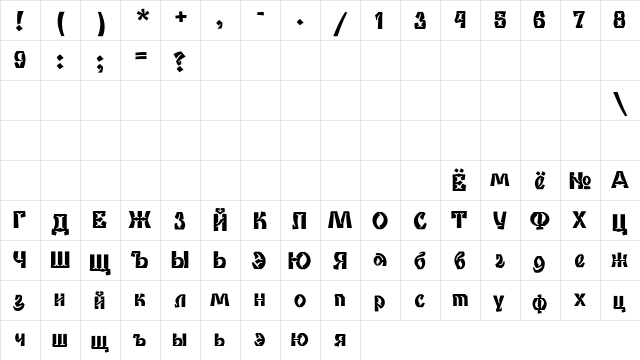
Beresta Normal
| Designer | Kazahstan, Aktau. Vlad Kuzmichev. god, sentjabrja |
Design Context for Beresta Typeface
Beresta is a composed and adaptable typeface that performs quietly and consistently across a wide range of design contexts.